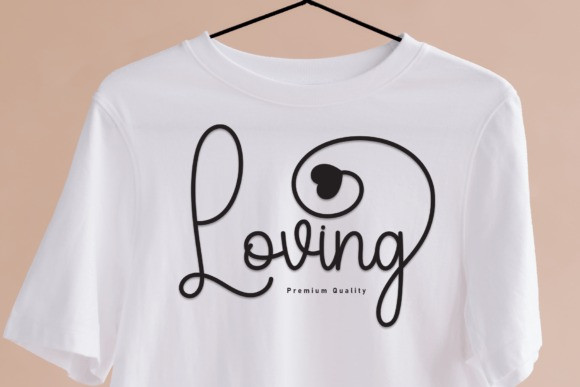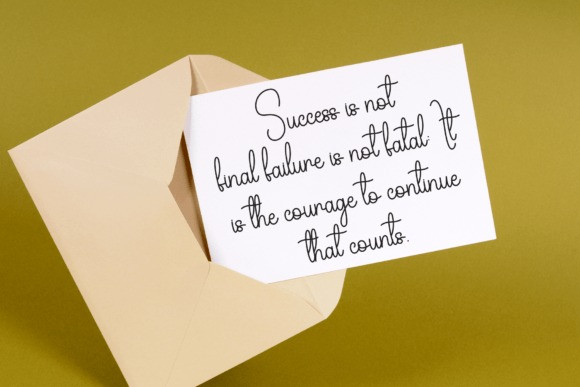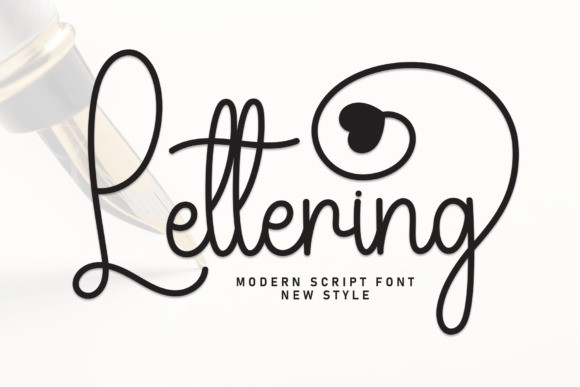
Lettering Handwriting Font
Lettering Handwriting Font is a lovely handwritten font that brings a touch of warmth and personal flair to your projects. With its charming and graceful strokes, this font adds a friendly and inviting feel to your text. Whether you’re creating heartfelt notes, invitations, or anything that deserves a personal touch, Lettering is the perfect choice for a simple yet delightful handcrafted look. Let your words shine with the sweet simplicity of Lettering.